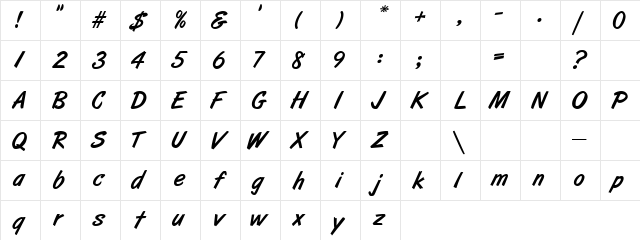
Greater Pen Regular
Design Context for Greater Pen Typeface
Greater Pen offers clean, dependable letterforms without strong stylistic allegiance, making it a practical choice for designers who need flexibility.
Pro Tip: Use Greater Pen in both headline and body roles to test its range before committing to a single application.